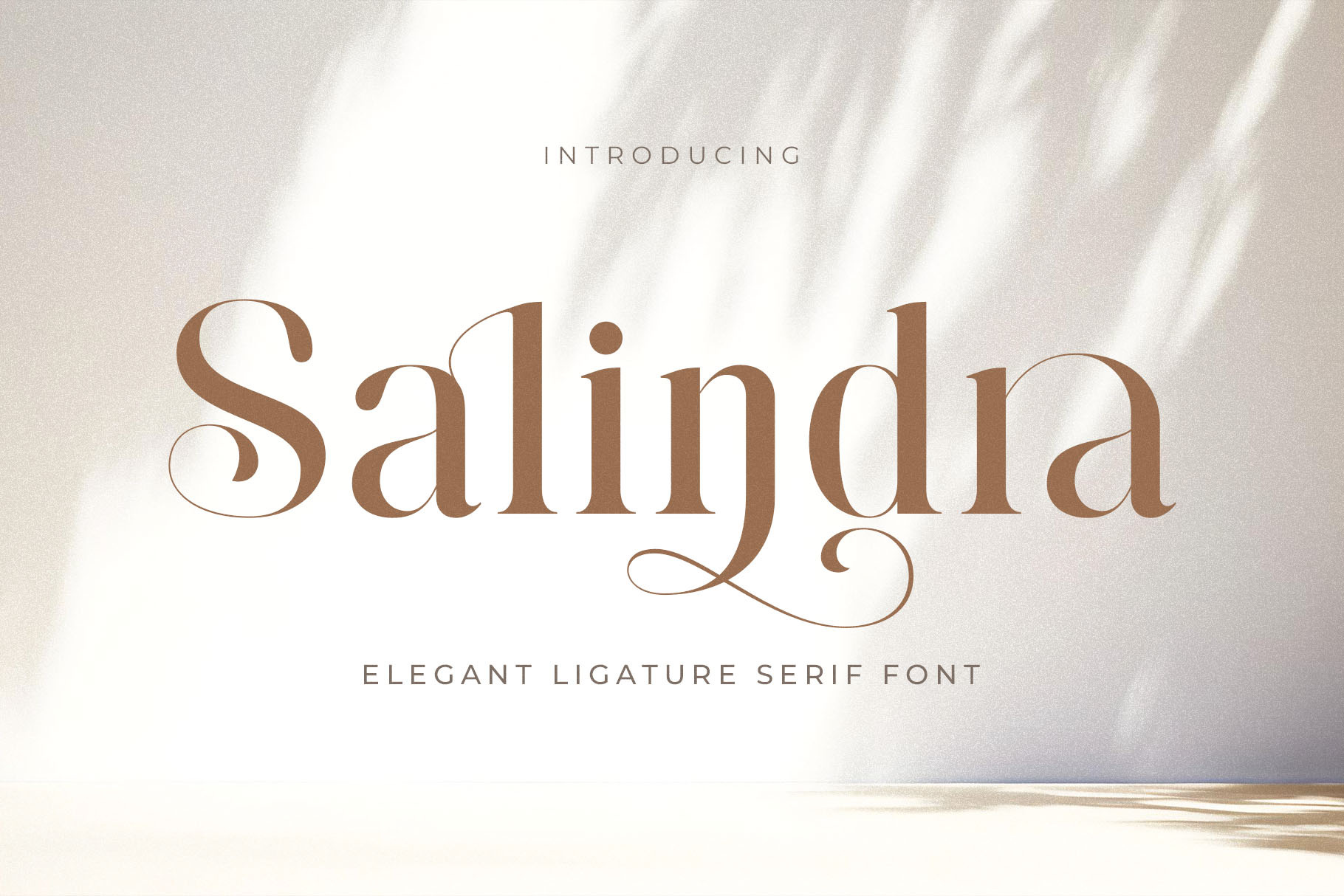
Salindra - Elegant Modern Serif Font
Introducing our new "Salindra" unique and modern serif font with elegant style this is perfect for branding, logos, invitation, magazines, product packaging and more.